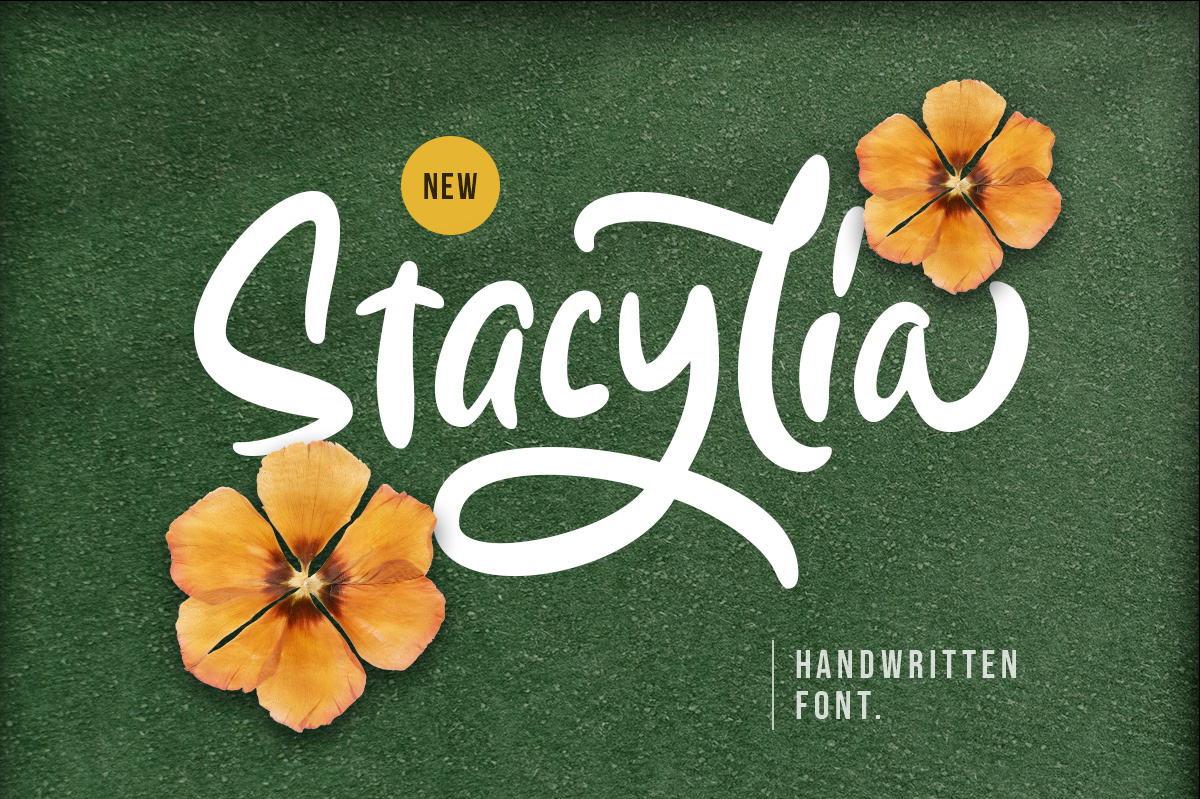
Stacylia Font
Stacylia Font is perfect for elegant fashion magazine layouts, sophisticated beauty brand packaging, luxury jewelry advertising, upscale cosmetic product labels, refined boutique signage, graceful wedding stationery designs, premium lifestyle blog headers, delicate perfume packaging, feminine wellness center branding, and chic social media graphics. This exquisite typeface brings timeless sophistication to high-end fashion collections, luxury spa marketing, elegant event planning services, premium skincare lines, and distinguished feminine brand communications.
Stacylia Font is exciting because it embodies refined femininity and contemporary elegance through its gracefully sculpted letterforms that capture the essence of modern sophistication. The font features delicately balanced characters with subtle curves and elegant details that evoke the poise of haute couture and the refined beauty of luxury lifestyle brands. Its distinctive construction demonstrates feminine grace with carefully crafted proportions that create an immediate sense of elegance and sophisticated charm. The font's refined beauty and feminine sophistication make it perfect for brands seeking to communicate luxury appeal, elegant taste, and contemporary feminine empowerment in their visual communications.
The Stacylia Font family includes various elegant styles: Thin, Light, Regular, Medium, Bold, Italic, Script, Condensed, Extended, Display, Luxury, and Sophisticated variants. Each family member maintains the core feminine DNA while offering different levels of elegance for diverse luxury design applications. The comprehensive font collection ensures consistent sophisticated branding across premium fashion campaigns, luxury beauty products, and elegant lifestyle marketing materials.
Stacylia Font Free Download offers designers an exceptional opportunity to enhance their projects with authentic feminine elegance and luxury sophistication. This remarkable typeface seamlessly blends contemporary grace with timeless beauty, making it ideal for both digital luxury platforms and premium feminine-focused print materials. The font's carefully crafted elegant details and sophisticated proportions create memorable visual experiences that resonate with audiences seeking refined beauty, luxury experiences, and sophisticated feminine expression.
Whether you're creating luxury fashion brand identities, designing premium beauty marketing materials, developing elegant website headers, or crafting sophisticated promotional campaigns, Stacylia Font delivers outstanding feminine appeal and luxury authenticity. The font's distinctive elegant personality excels in luxury logos, premium packaging design, sophisticated applications, and feminine projects where refined beauty and contemporary elegance are essential.